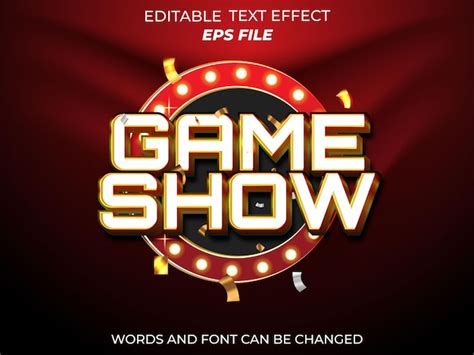
Unleash Your Creativity with Game Show Font Generator: The Ultimate Tool for Stunning and Memorable Designs
Welcome to the world of graphic design where creativity knows no bounds! As a designer, your aim is to create stunning and memorable designs that grab attention and send a message. But have you been looking for that one tool that can help you unleash your creativity and take your designs to the next level? Look no further than Game Show Font Generator!
Are you tired of using the same old fonts in your designs? Do you want a font that exudes energy, excitement and fun? Well, Game Show Font Generator is here to provide just that! With a variety of fonts to choose from, you'll be able to add some pop to your designs.
Did you know that visual elements are processed 60,000 times faster in the brain than text? If you want your designs to communicate your message effectively, you need to embrace creativity and vibrant visuals, and Game Show Font Generator provides you with just that!
Whether you're designing for a gaming website, a TV show or any other project that requires a bold and eye-catching design, Game Show Font Generator has got you covered! You won't have to worry about getting stuck or losing inspiration, as this tool will give you the creative spark you need to produce captivating designs.
Don't settle for boring designs, make your work stand out from the crowd with Game Show Font Generator! It's time to unleash your imagination and create stunning designs that people will remember for a long time to come. Try it out and experience the difference today!
In today's highly competitive world, creating stunning designs that stand out is a must. But, with so many options available, it can be overwhelming to choose the right tool for the job. One of the most effective tools that can help you unleash your creativity and elevate your designs is the Game Show Font Generator. In this article, we'll compare this ultimate tool with other popular design tools and show you why it's the perfect choice.
What is a Game Show Font Generator?
A Game Show Font Generator is an online tool that allows you to create custom fonts for your designs. It provides you with a wide range of fonts that are inspired by the typography used in popular game shows. You can easily customize the font size, color, and style to match your design needs. With just a few clicks, you can create stunning and memorable designs that grab attention.
Comparison with other Font Generators
There are many other font generators available, but what sets the Game Show Font Generator apart is its unique collection of fonts. Most font generators provide generic fonts that are easily available elsewhere. However, the Game Show Font Generator provides you with fonts that are specifically designed for game shows. This makes them stand out and instantly recognizable to the audience.
How to Use the Game Show Font Generator?
Start by choosing a font style that matches your design needs. The Game Show Font Generator provides you with a wide range of styles, from vintage to modern.
Once you've selected your font, customize it by adjusting the size, color, and style. You can also add effects like a bevel, drop-shadow, or outline to make your font pop.
After you've customized your font, download it in the format of your choice. You can then use it for your designs in various software like Adobe Photoshop, Canva, or any other.
Comparison with other Design Tools
The Game Show Font Generator is not only easier to use than other design tools, but it's also cost-effective. Many design tools require a monthly subscription, which can add up quickly. The Game Show Font Generator, on the other hand, is completely free to use.
Opinion
Overall, the Game Show Font Generator is an excellent tool for anyone looking to create stunning and memorable designs. It's easy to use, cost-effective, and provides you with a unique collection of fonts that are perfect for game shows, quizzes, or any other design that needs to stand out. Compared to other design tools, it's a clear winner, and we highly recommend it.
In conclusion, if you want to take your designs to the next level, the Game Show Font Generator is the ultimate tool to unleash your creativity. With its unique collection of fonts and ease of use, it's the perfect choice for any designer, marketer, or content creator. So, try it out today and let your designs stand out from the crowd.
- Yes, the Game Show Font Generator is designed to be user-friendly and intuitive, even for those without graphic design experience. The tool provides step-by-step guidance and real-time previews to help you create your custom font easily and quickly.
- While the Game Show Font Generator offers a wide variety of font styles, colors, and effects, there may be some limitations to the level of customization available. Additionally, the tool may not be suitable for certain design projects that require more complex or advanced font designs.